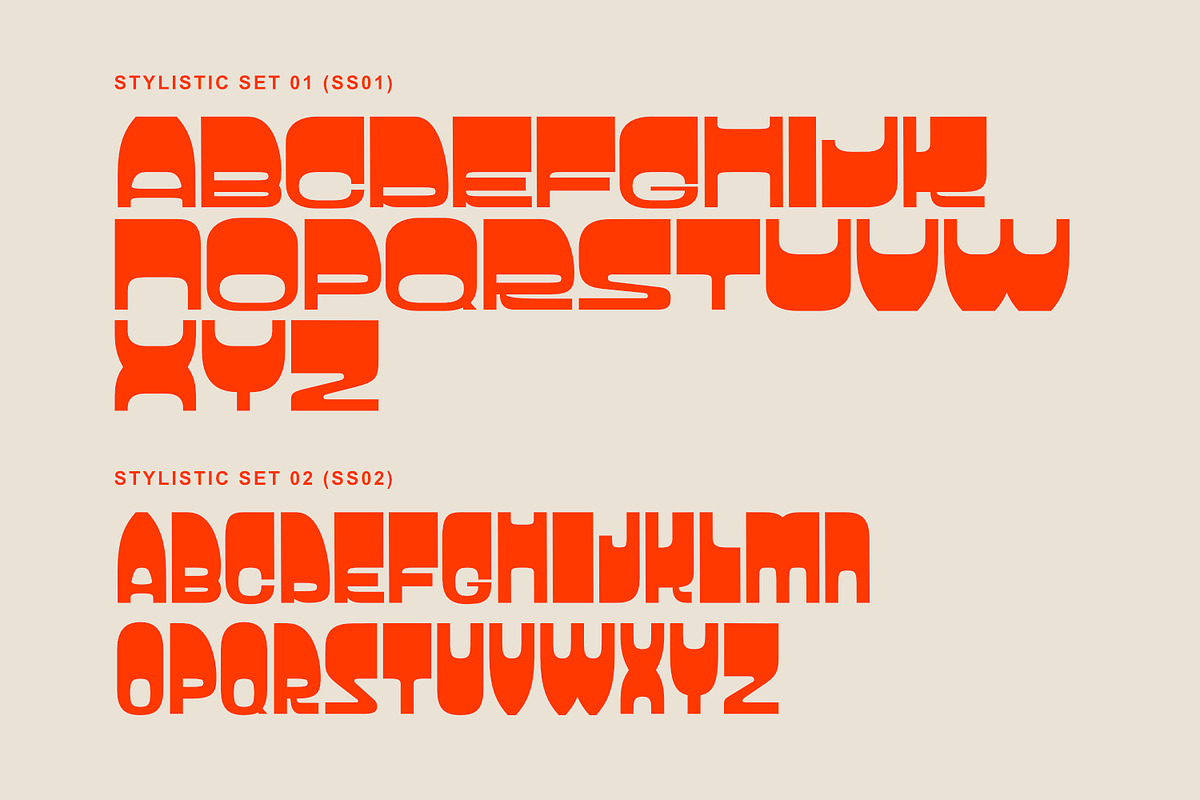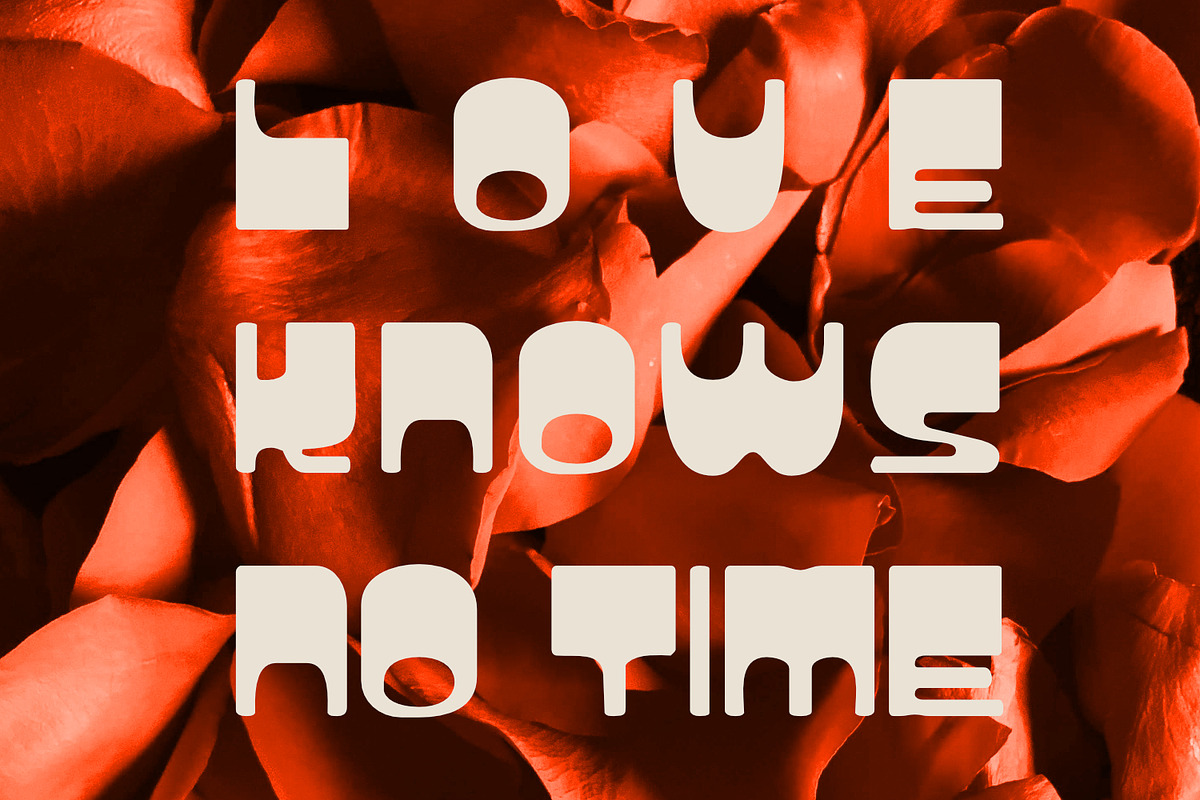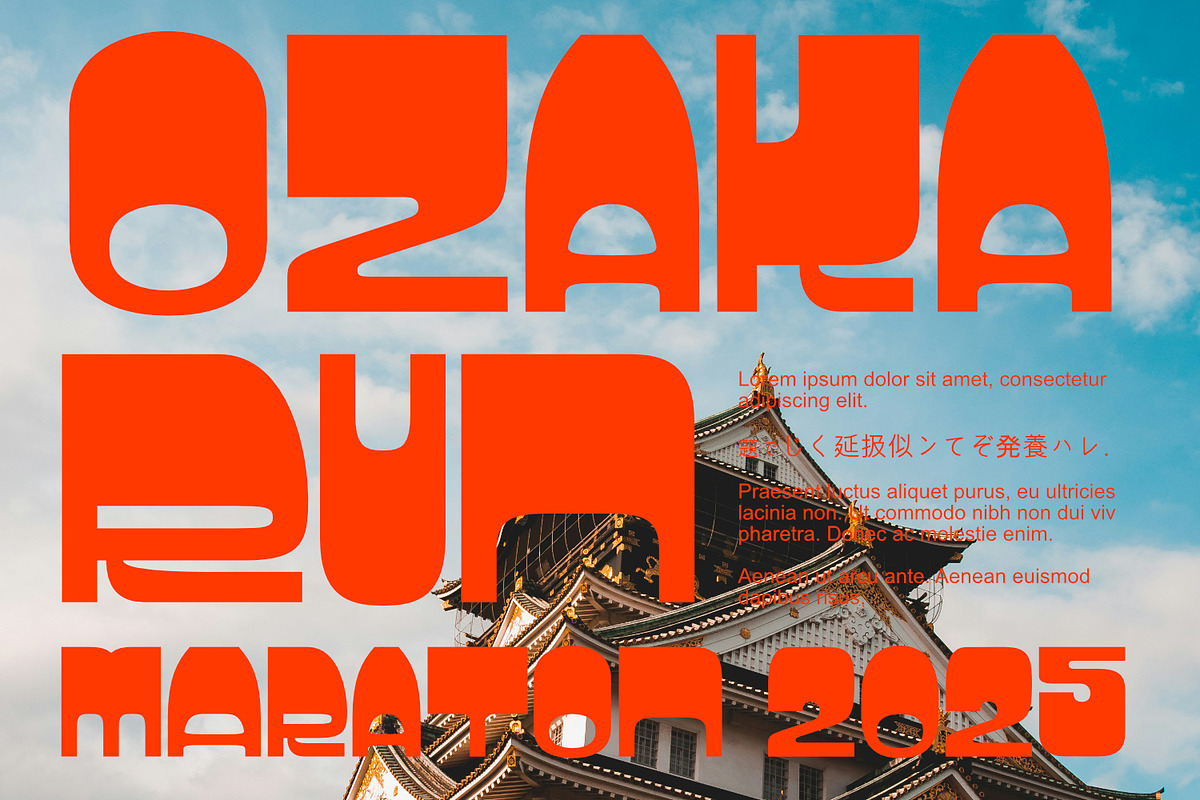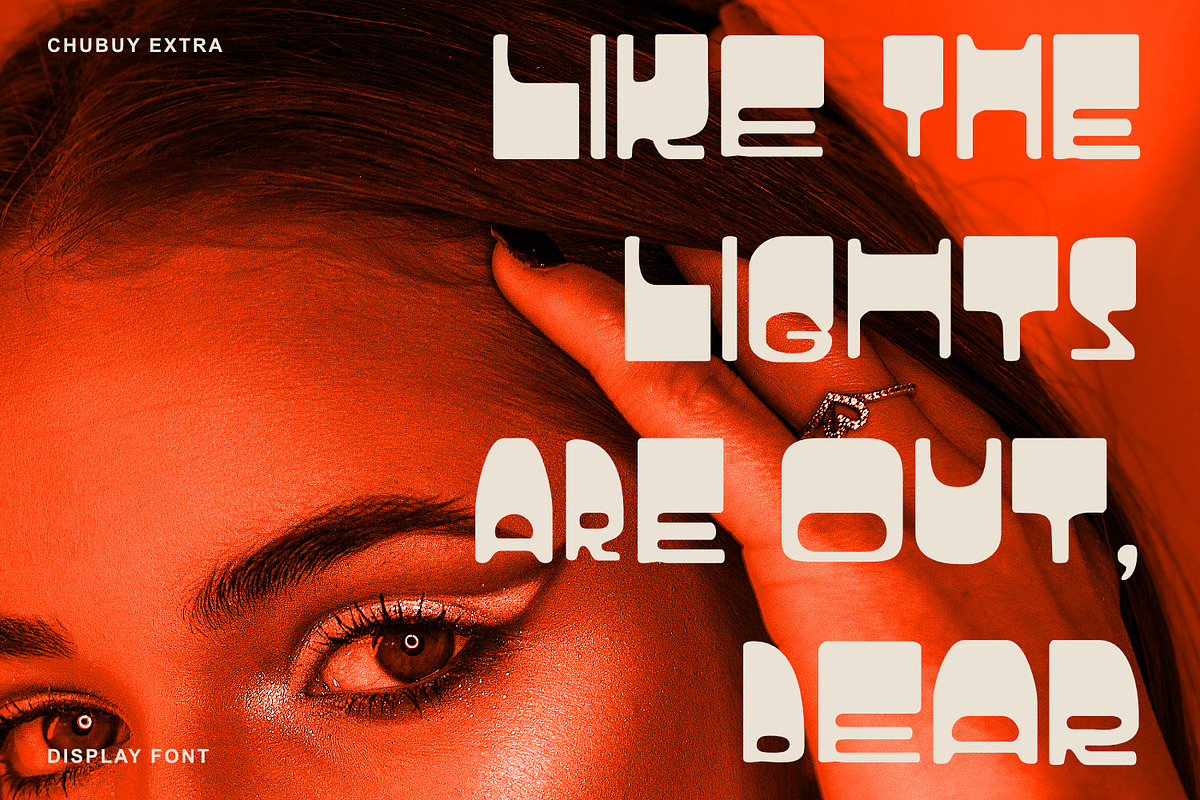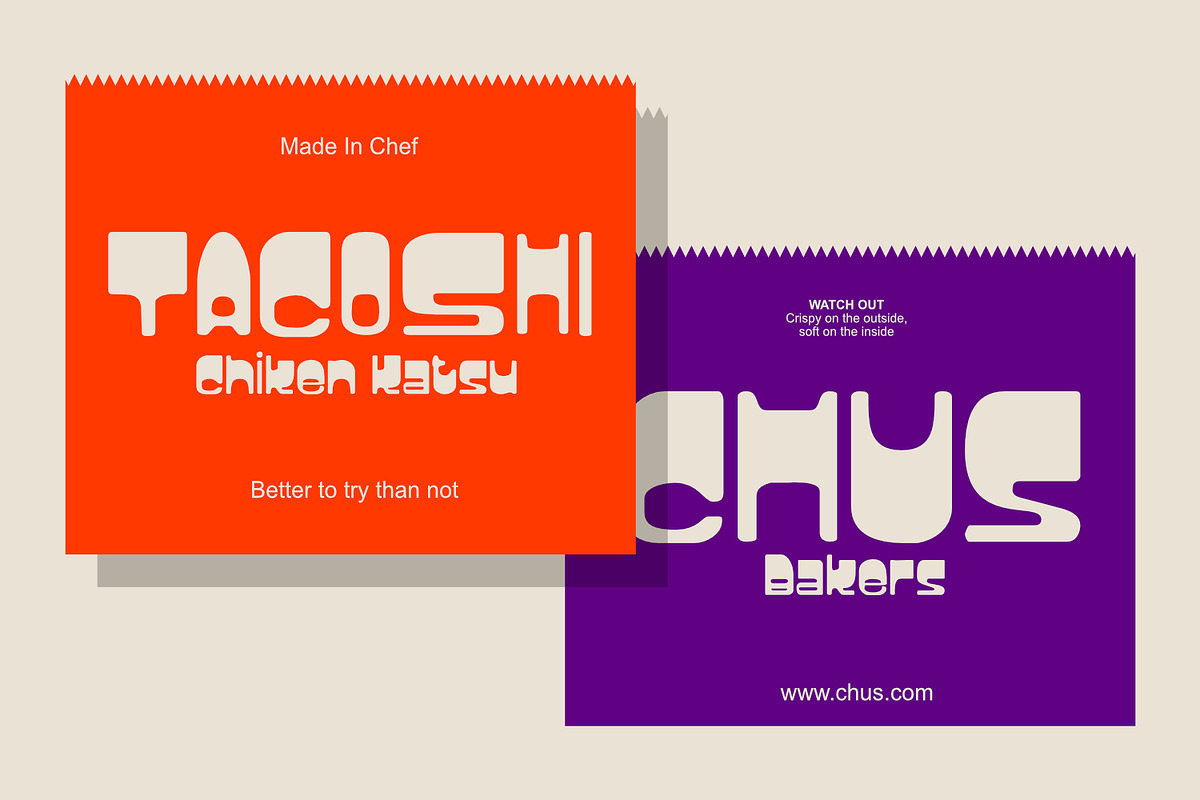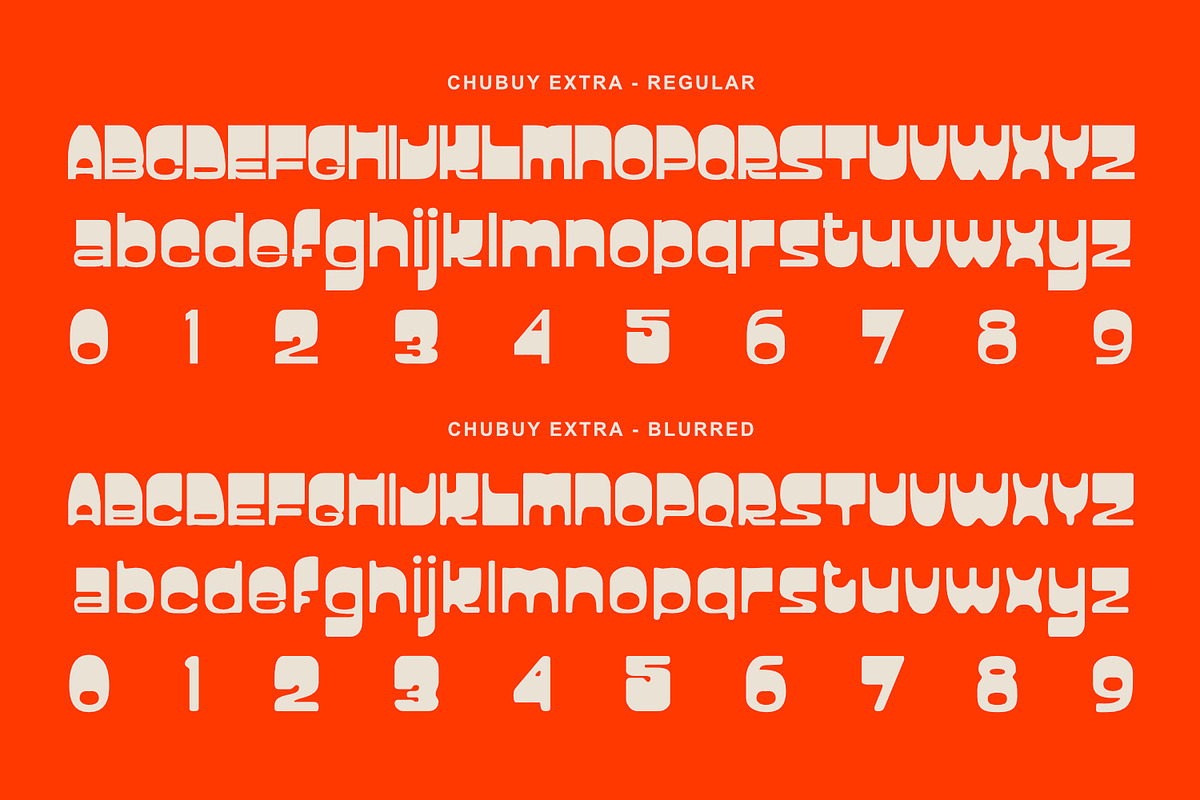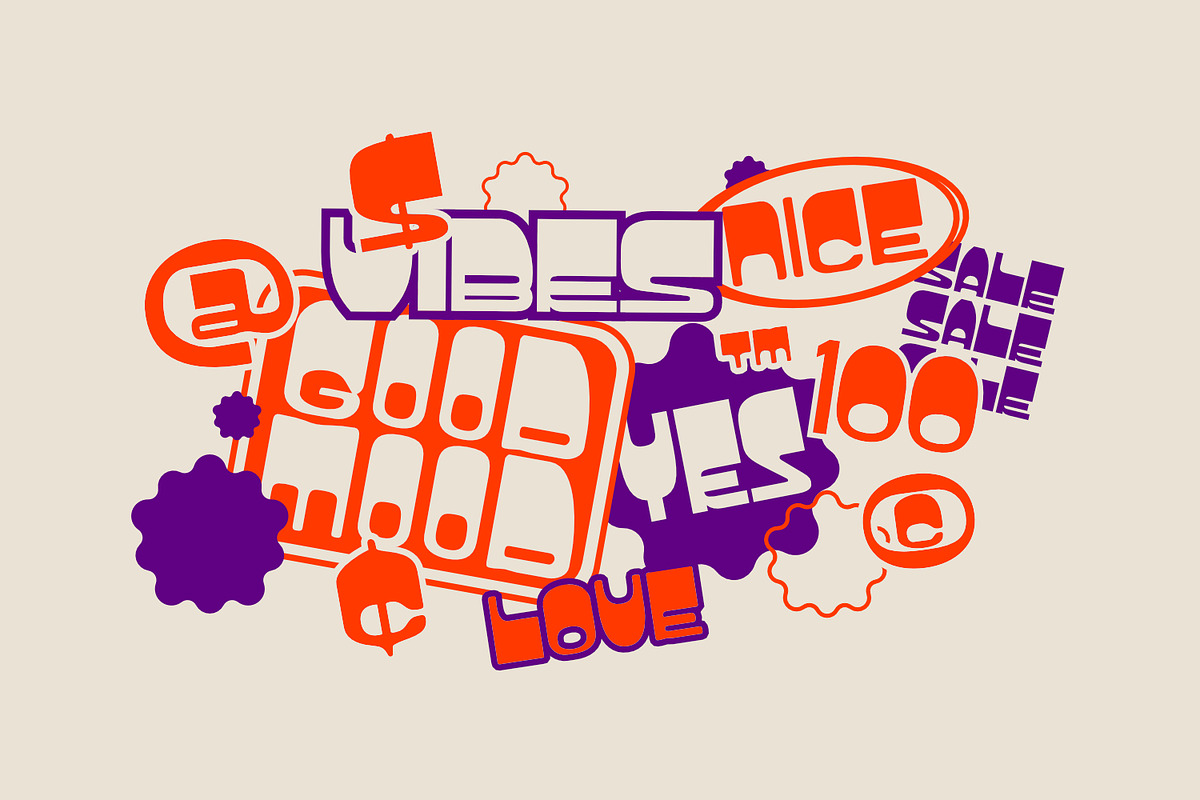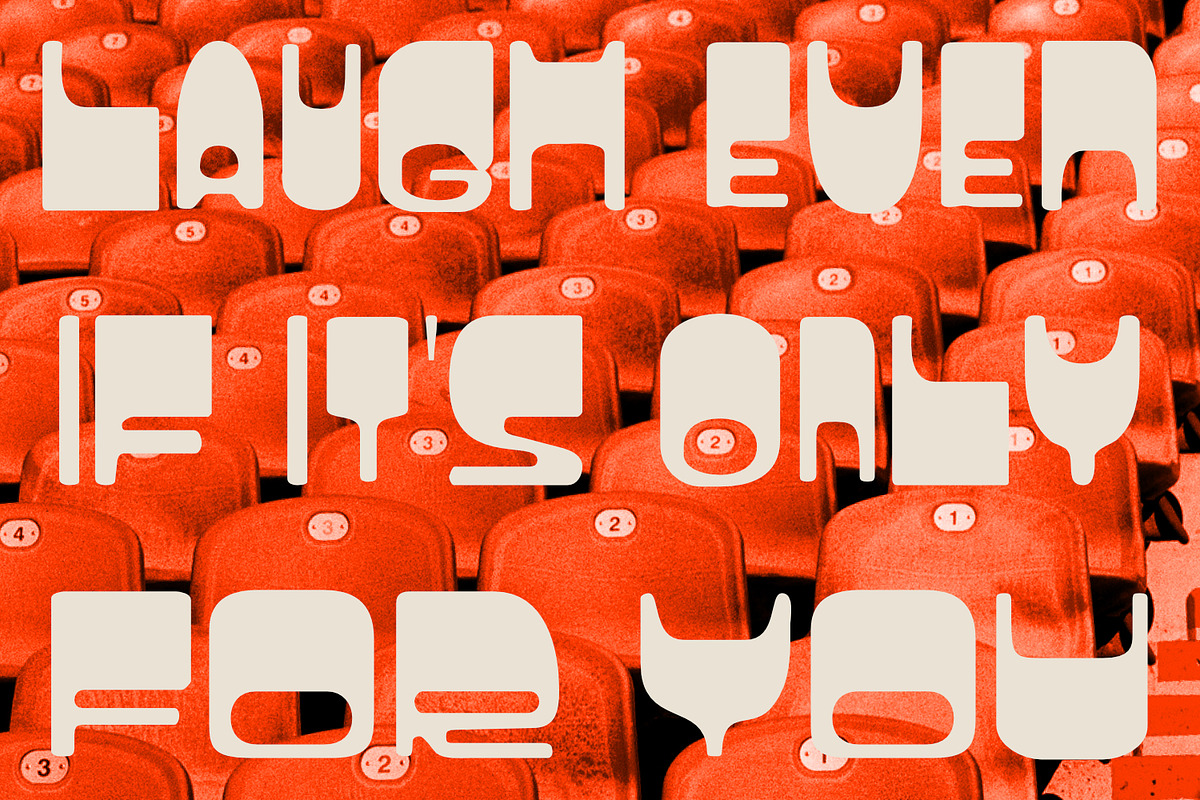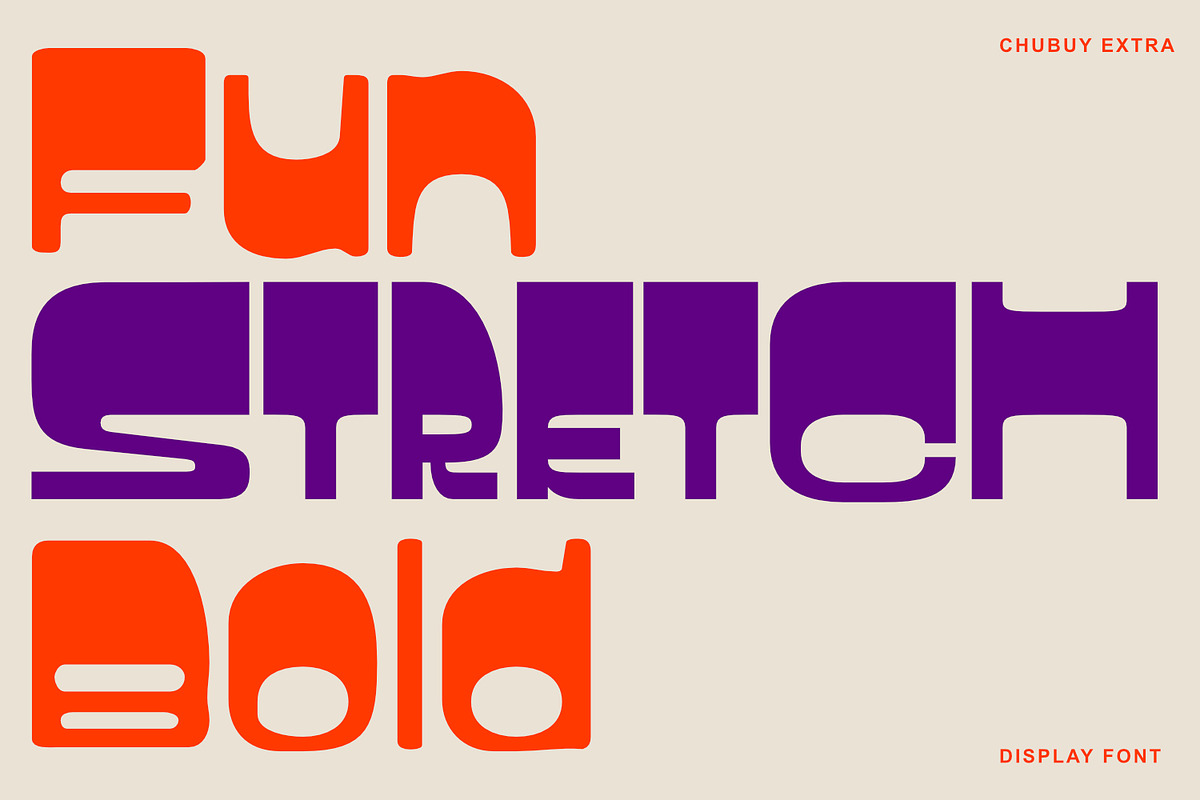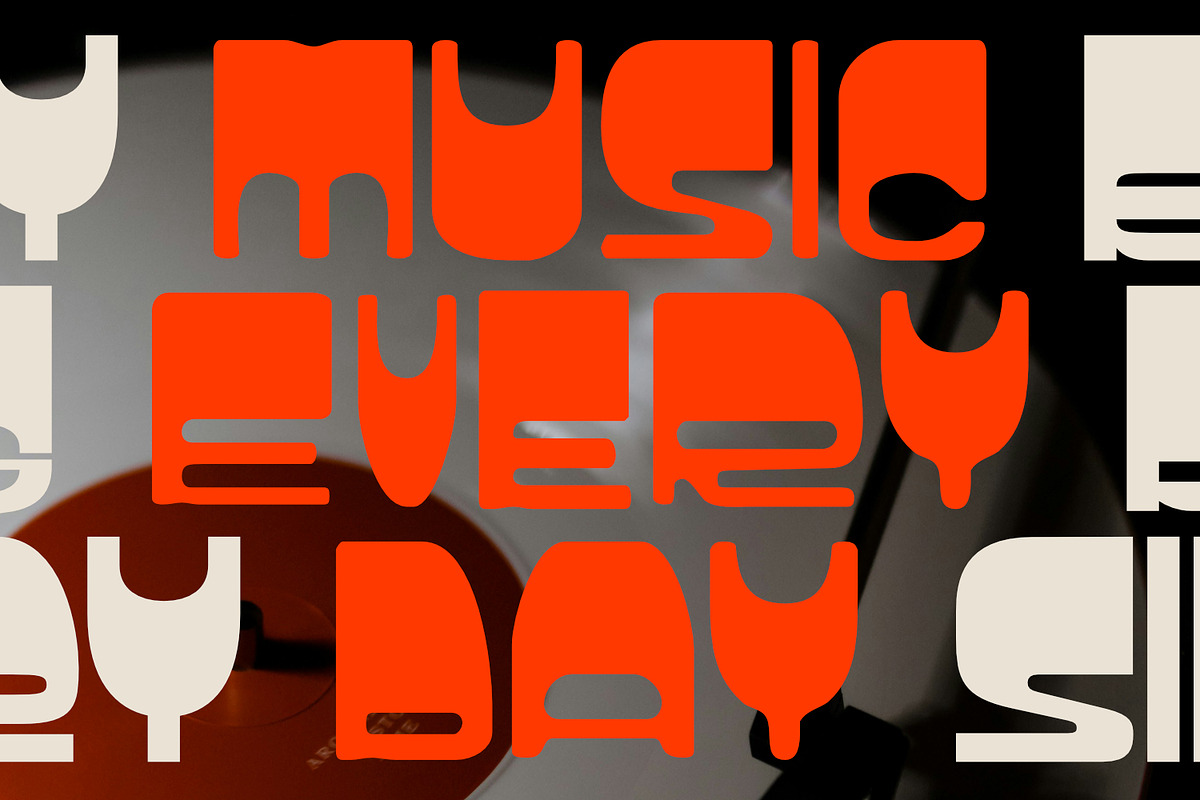
Chubuy Extra - Display Font
This font is unique and attractive, with a slightly heavy top and two variants, regular and blurred, as well as alternate letter styles that expand and contract, making it easy to apply to various project designs such as event posters, packaging designs, company logos, quotes and more.
- Alternate Font